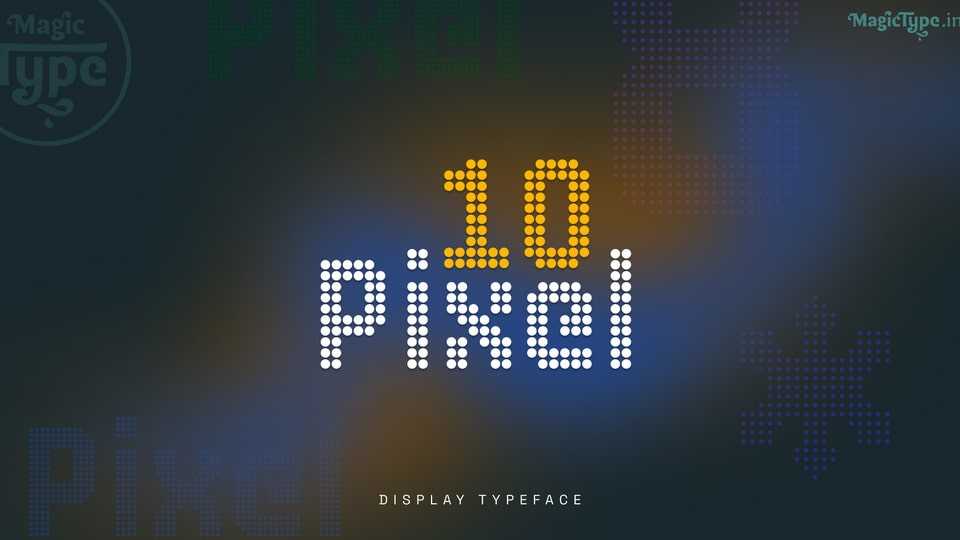
10 Pixel Font Family › Fontesk – Download Grátis
Download 10 Pixel font, a rounded pixel typeface with three unique weights by pixel density; Light, Mild, and Strong. This font design is based on a 10-pixel unit height, giving it a consistent and uniform appearance.